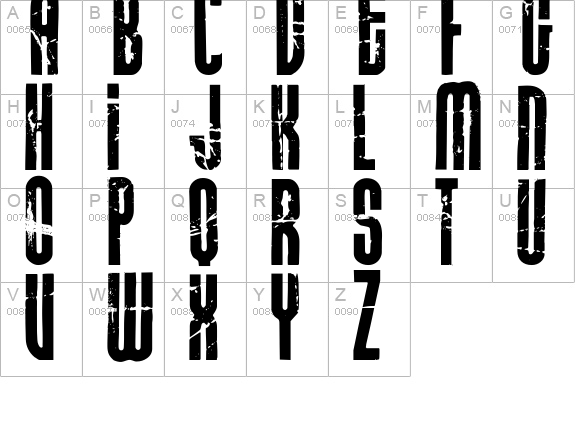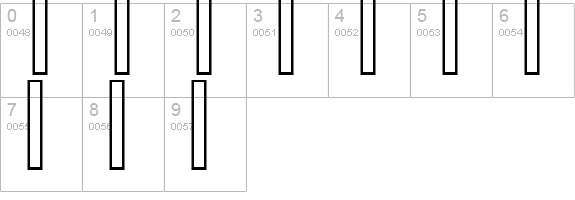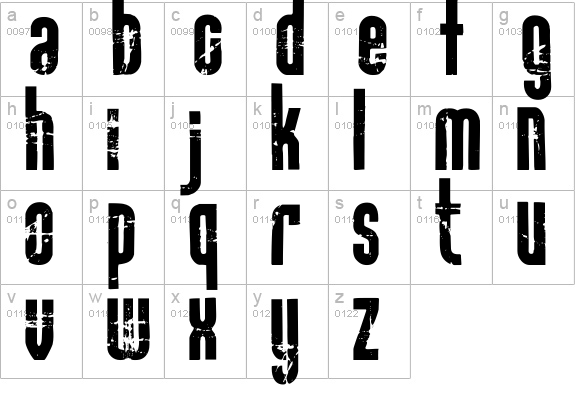
Rock it font is a bold and edgy typeface that exudes a powerful and rebellious energy. Its sharp angles and strong lines give it a modern and dynamic look, making it perfect for designs that need to make a strong statement. Whether you're working on a poster, logo, or branding project, Rock it font will add a touch of attitude and style. The best part? Rock it font is completely free to download at FontsMarket.com, where you can easily access this versatile typeface to enhance your creative projects. Don't miss out on the opportunity to add this impactful font to your collection today!